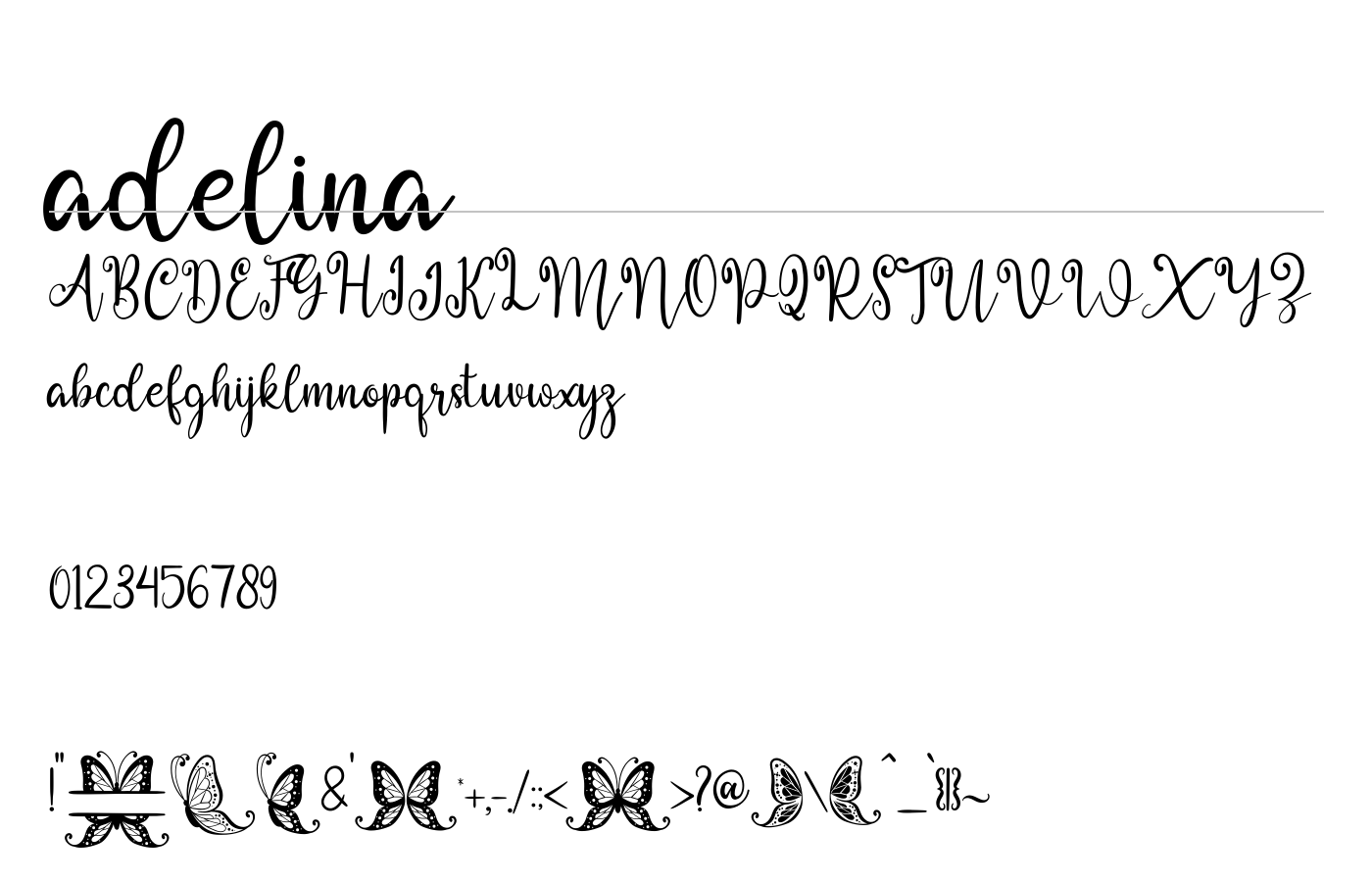
Adelina is a whimsical and elegant script font with delicate, flowing letterforms that combine graceful curves and charming decorative swashes. Its light weight and tall, narrow characters create a refined and airy feel, making it ideal for feminine branding, invitations, and creative projects where a touch of sophistication and playfulness is desired. The font’s decorative butterfly-like symbols add a unique, artistic flair perfect for distinctive logos and ornamental designs.
adelina Font